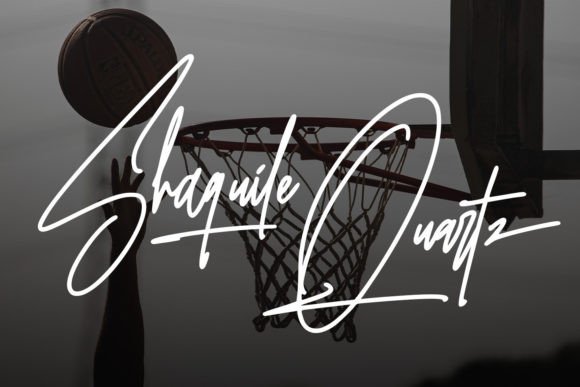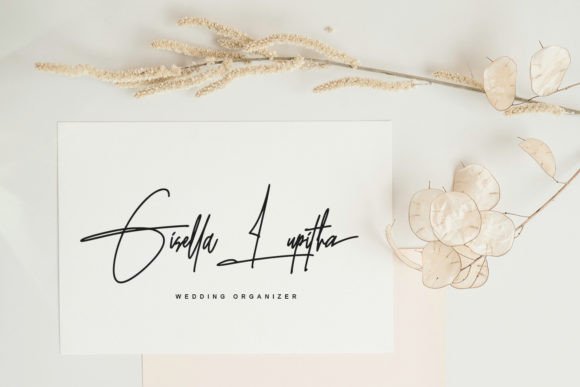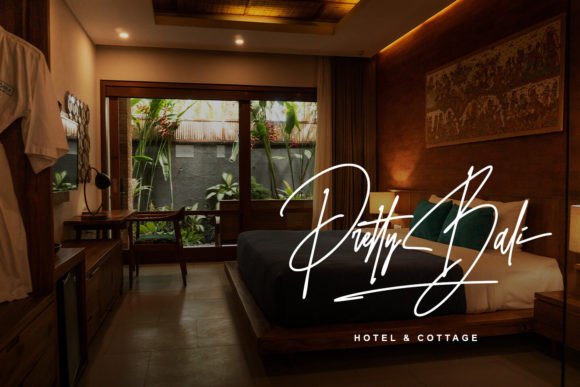
The Quest for the Perfect Font: Discovering Australiana
I’ll never forget the design project that led me to Australiana Font. I was working on a branding project for a luxury wedding planner, and I needed a font that exuded elegance, sophistication, and a touch of whimsy. I scoured the internet, tried out countless fonts, but nothing seemed quite right. That was until I stumbled upon Australiana – a beautiful, handwritten font that instantly captured my heart. In this article, I’ll share my love for Australiana, its features, and how to make the most of it in your designs.
An Honest Review of Australiana Font
- ✨ Exquisite handwritten feel with a classy, calligraphic touch
- ✅ Contemporary and fresh, perfect for modern designs
- 💫 Highly legible, even at smaller font sizes
- 🎨 Versatile and suitable for a wide range of projects, from wedding stationery to luxury branding
While Australiana is an exceptional font, there are a few things to keep in mind:
- ⚠️ Some users may find the font a tad too ornate for very casual or playful projects
- 🤔 The font’s elegance may not be suitable for very long blocks of text, such as novels or articles
The Story Behind Australiana Font
Australiana Font was designed with the intention of creating a beautiful, elegant script font that captures the essence of luxury and sophistication. The designer aimed to create a font that would be perfect for special occasions, such as weddings and high-end branding projects. With its intricate details and flowing lines, Australiana is sure to impress.
Q: What type of projects is Australiana Font best suited for?
A: Australiana Font is perfect for luxury branding, wedding stationery, and high-end design projects.
Q: Is Australiana Font available in different styles or weights?
A: Australiana Font comes in a range of styles and weights, making it versatile and suitable for various design applications.